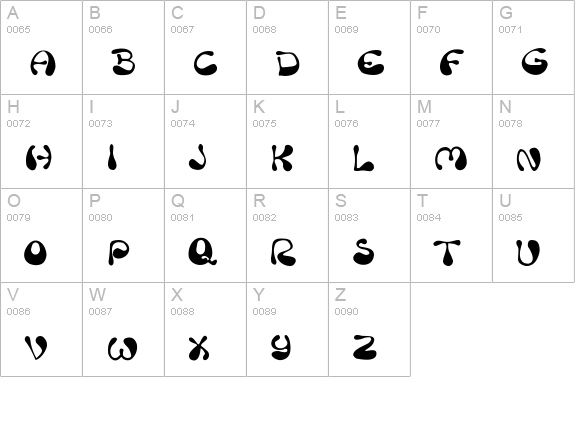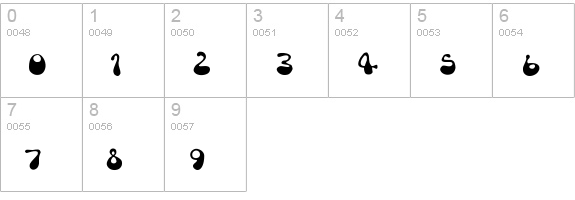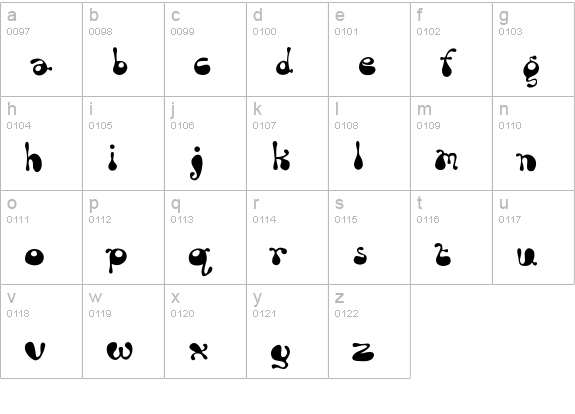
Rum Bubber Font Details
Rum Bubber font is a charming and playful typeface that exudes a sense of whimsy and creativity. Its rounded edges and quirky letterforms give any design a fun and friendly feel. Perfect for adding a touch of personality to invitations, posters, or branding materials, Rum Bubber font is sure to make your message stand out. Best of all, Rum Bubber font is completely free to download at FontsMarket.com. Whether you're a seasoned designer looking to add a new font to your collection or a beginner exploring typography for the first time, Rum Bubber font is a versatile and eye-catching choice that won't cost you a penny. Download it today and let your creativity run wild with this delightful and expressive typeface.